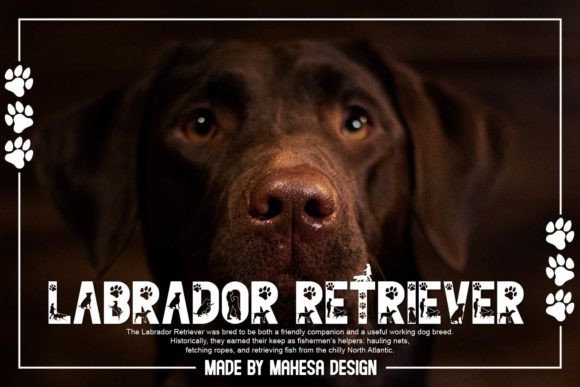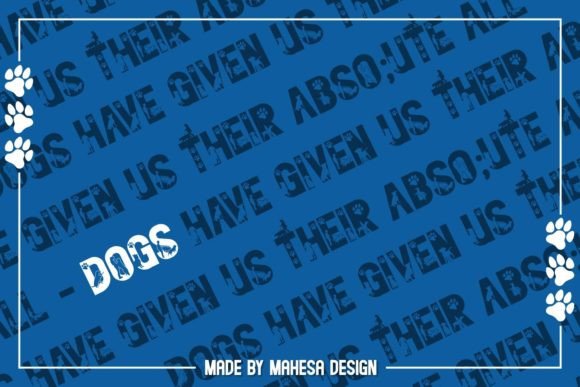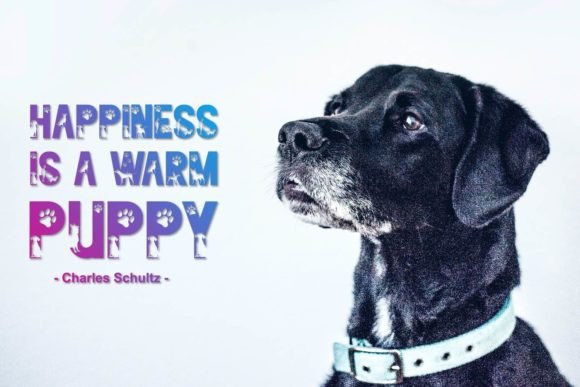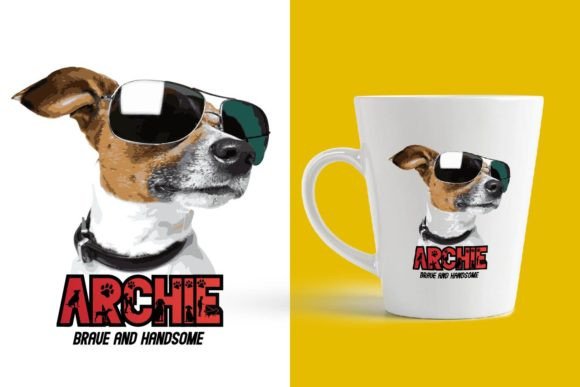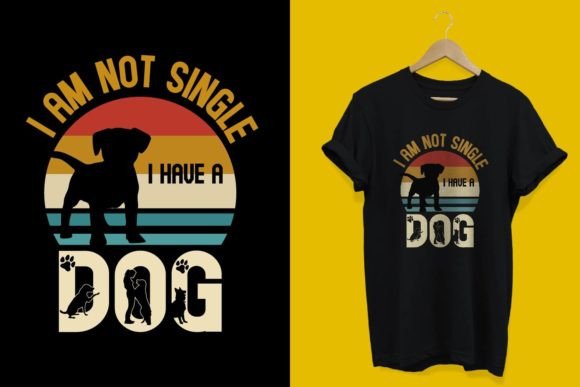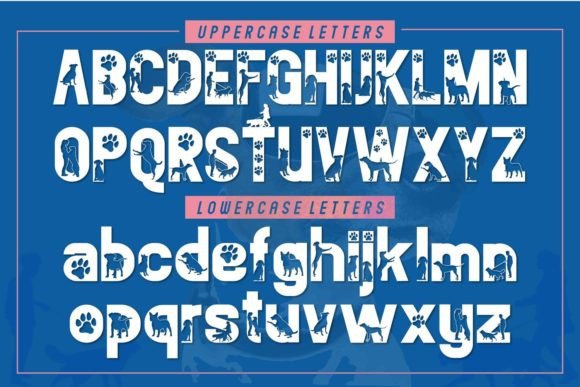
Introduction to Friendly Dog Font
Do you remember that moment when you stumbled upon the perfect design element that took your creative project to the next level? For many designers, it’s a moment of pure joy and excitement. For me, that moment came when I discovered the Friendly Dog Font. This adorable font has been a game-changer in my design process, and I’m excited to share its magic with you.
Whether you’re working on a project that requires a high-quality, cute design element or just want to add a personal touch to your social media posts, the Friendly Dog Font is an incredible asset to have in your design library. Its transparent background and adorable design make it a perfect fit for any creative project.
This free download is a must-have for designers who want to elevate their work and make it more engaging and fun. With the Friendly Dog Font, you’ll be able to add a personal touch to your designs and make them stand out from the crowd.
Key Features of Friendly Dog Font
- High-quality design resource ideal for creative projects, including illustrations and graphics.
- Comes with a transparent background, allowing for seamless integration into various design compositions.
- Each character is meticulously designed to ensure a consistent and cohesive look throughout the font.
- Features a unique, playful style that’s perfect for adding a lighthearted touch to designs.
Honest Review: Friendly Dog Font
I recently came across the Friendly Dog Font, a design resource that caught my eye. As a designer, I’m always on the lookout for high-quality fonts to elevate my creative projects. In this review, I’ll share my thoughts on what works well and what could be improved.
- ✨ Unique and playful design: The Friendly Dog Font is a fun and quirky addition to any project.
- ✨ Transparent background: This makes it easy to use the font over any background, which is a big plus.
- ⚠️ Limited character set: I was surprised to find that the font doesn’t include a wide range of characters, which could be a limitation for certain projects.
- ⚠️ Not suitable for formal projects: The playful design of the font may not be suitable for formal or professional projects.
Overall, I think the Friendly Dog Font is a great addition to any design library. While it has some limitations, its unique design and transparent background make it a valuable resource for designers working on creative projects. If you’re looking for a fun and playful font, the Friendly Dog Font is definitely worth checking out.
The Friendly Dog Font is a versatile design resource that can be used in a variety of creative projects, such as social media graphics, flyers, and posters. It’s also perfect for use in branding materials, like logos and business cards.
For the best results, use the Friendly Dog Font in conjunction with other high-quality design elements, like graphics and images. Experiment with different font sizes and styles to add visual interest to your design. You can also use the font in combination with a free download of a design template to create a cohesive look.